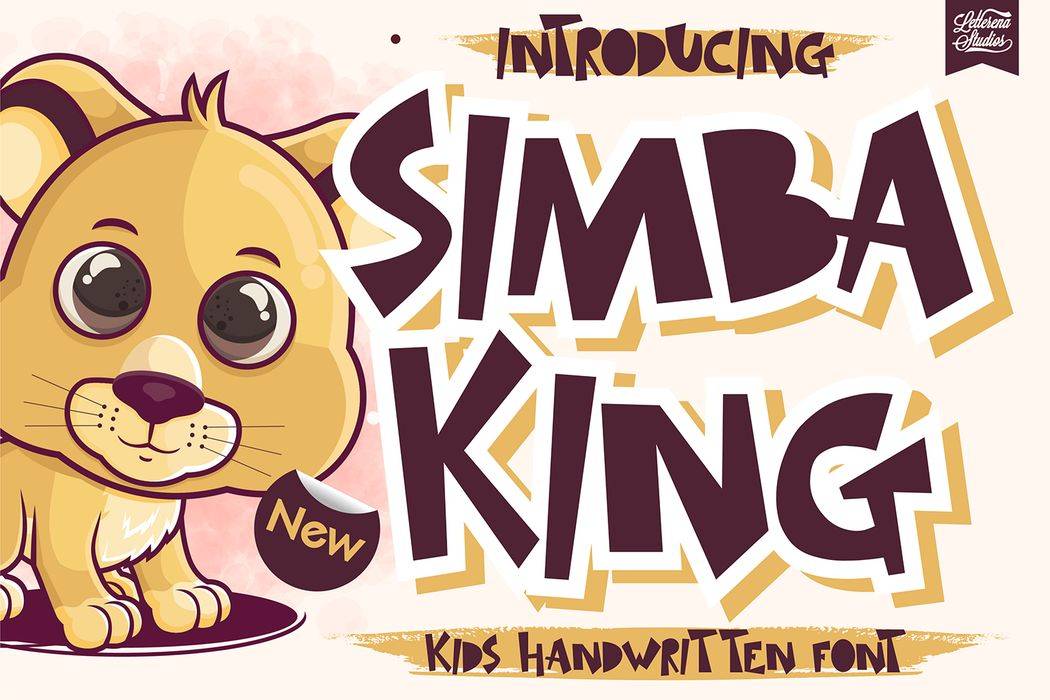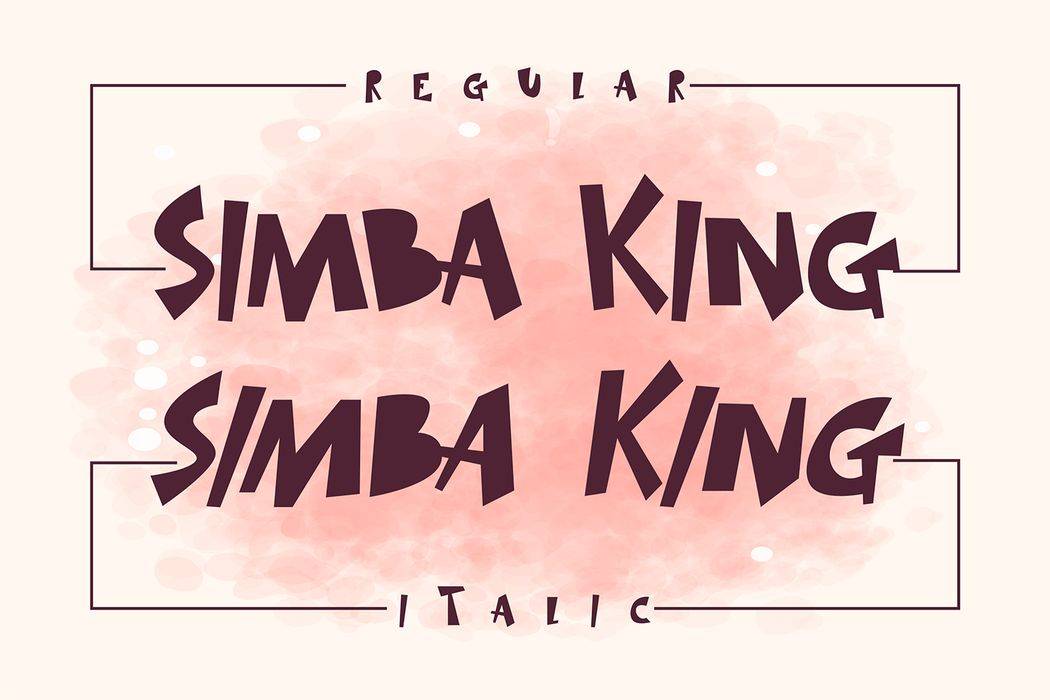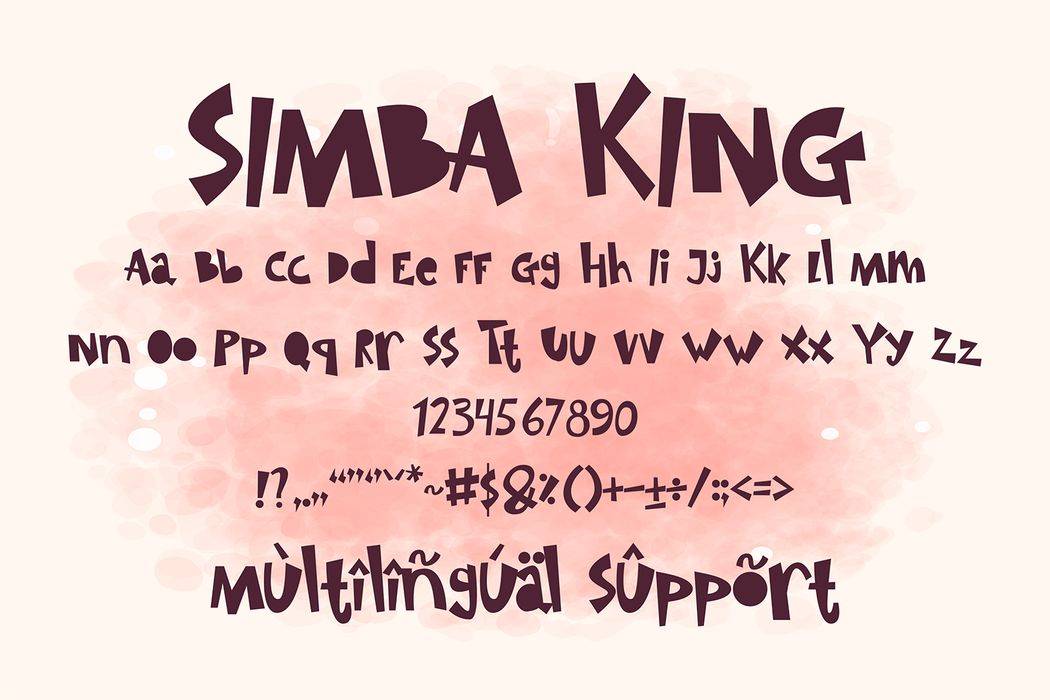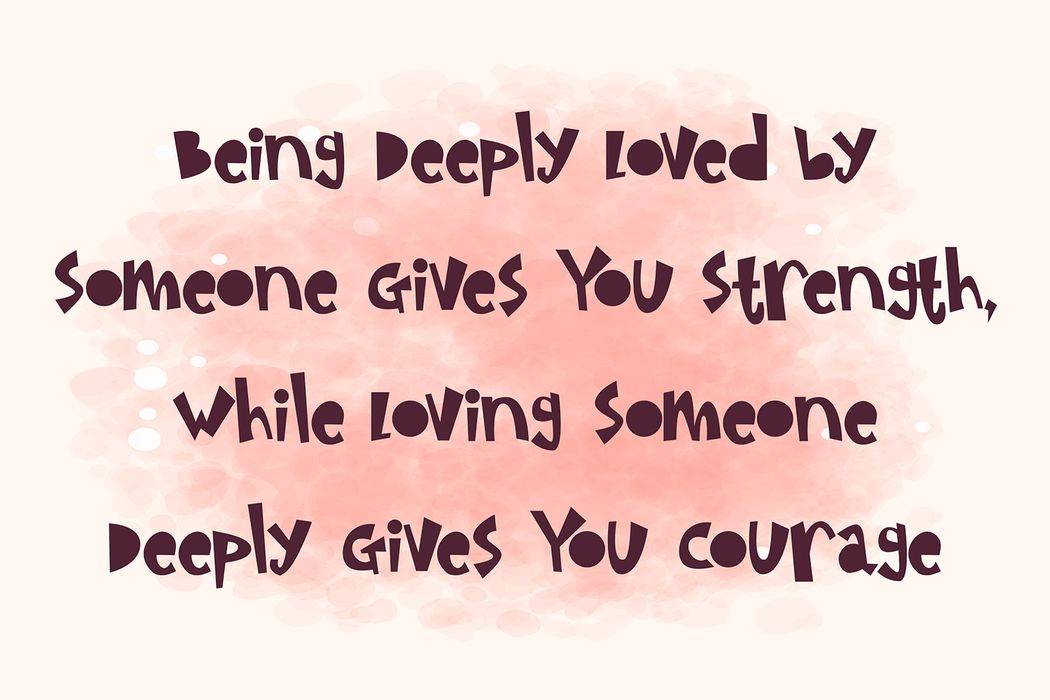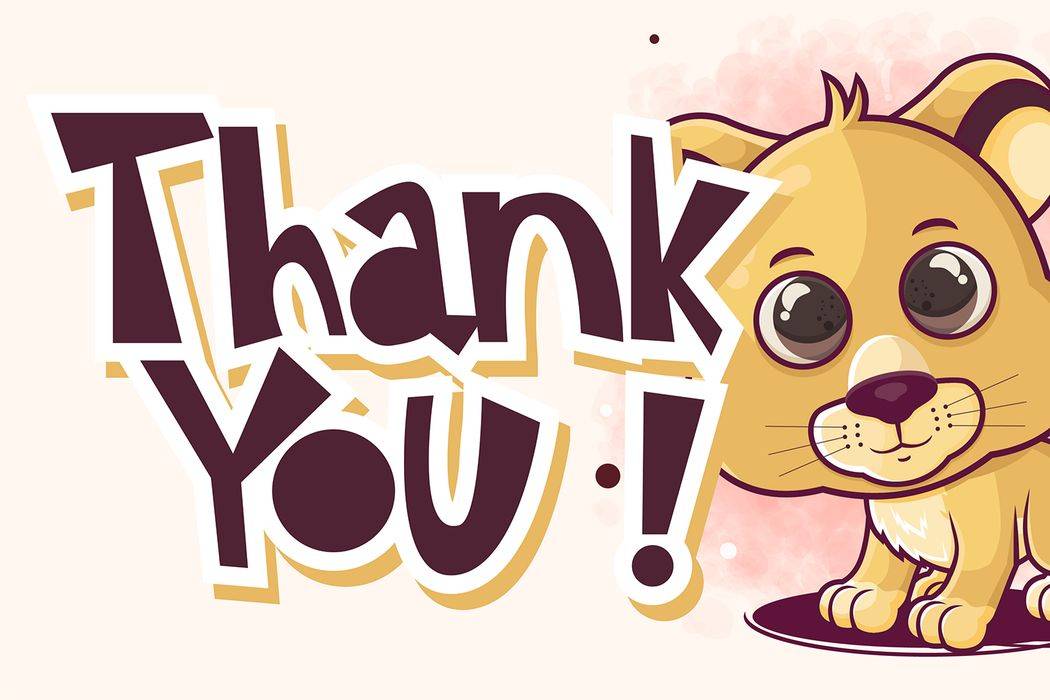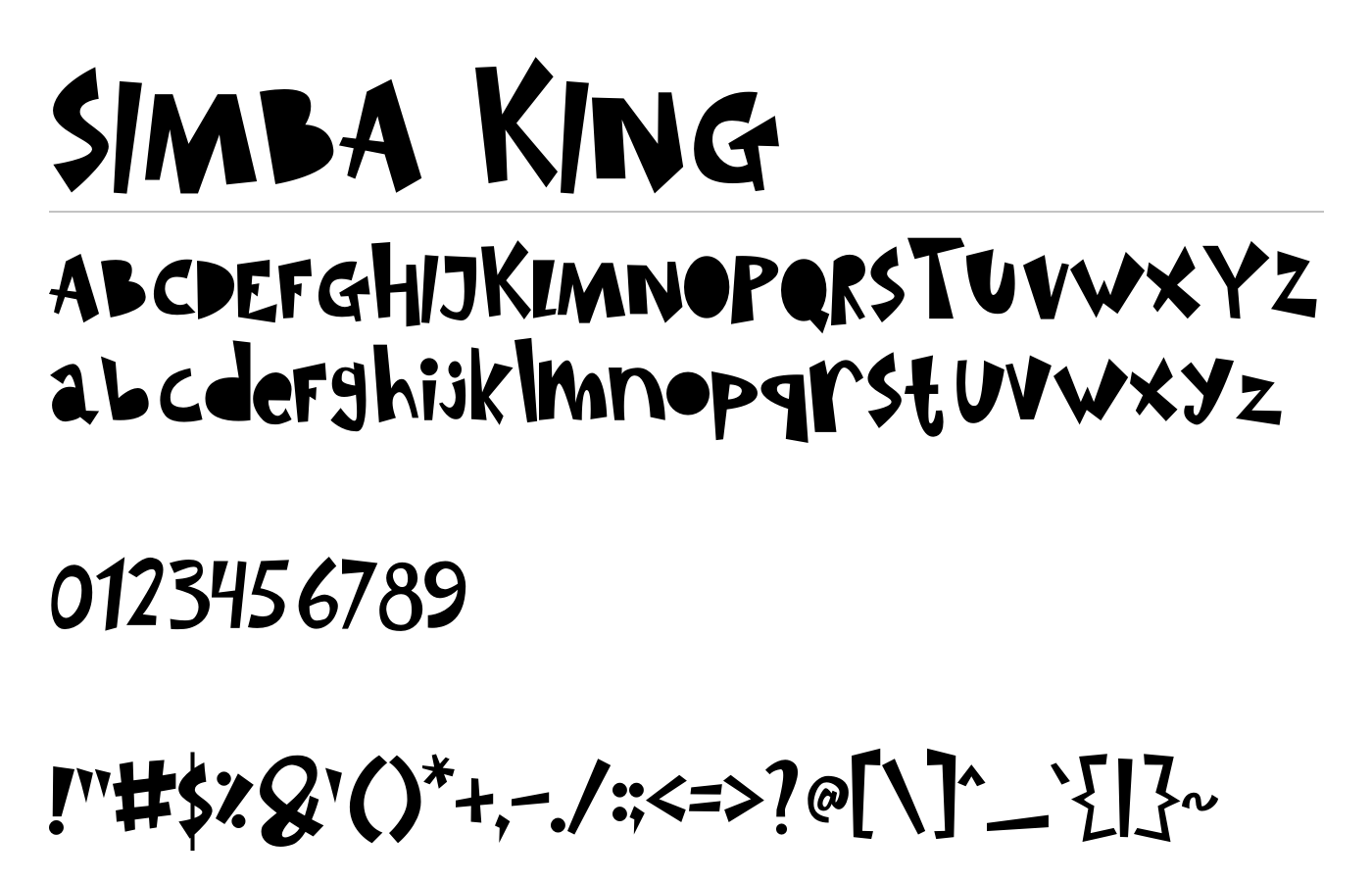
Simba King is a playful and bold display font featuring quirky, uneven letterforms that bring a lively and fun energy to any design. Its irregular shapes and strong, chunky strokes make it perfect for eye-catching headlines, children’s content, and creative branding where a whimsical and informal tone is desired. This font works best in projects that benefit from a cheerful, animated personality rather than formal or serious communication.
Simba King Font
About Simba King Font
| Font family | Simba King Font |